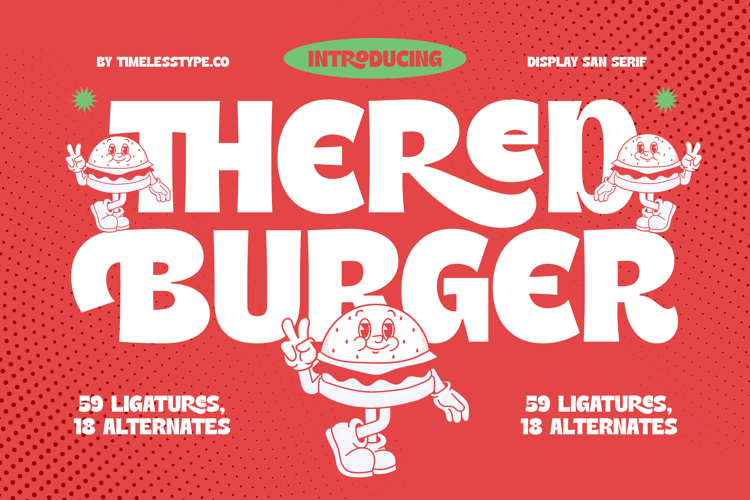
Thered Burger - Display Sans Serif
Theren Burger is a display sans serif font that captures boldness, fun, and youthful energy in every curve. With its chunky letterforms, rounded shapes, and playful vibe, this typeface brings a sense of approachability and excitement, perfect for projects that aim to stand out with personality. Equipped with 59 ligatures and 18 alternates, Theren Burger offers designers creative flexibility to craft expressive and dynamic layouts that feel fresh and engaging.
This font is designed to shine in headline typography, where its strong forms and bold presence make an immediate impact across posters, banners, and digital content. In branding and logo design, Theren Burger communicates friendliness and creativity, making it an excellent choice for restaurants, food brands, streetwear, and lifestyle businesses that want to connect with audiences in a memorable way. Its bold character also makes it perfect for packaging design, particularly for snacks, beverages, and fast-food products where fun and energy drive visual appeal.